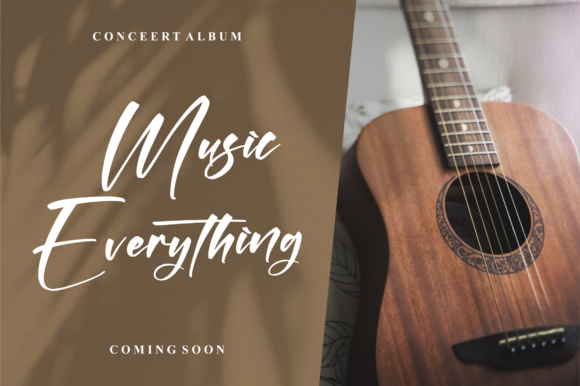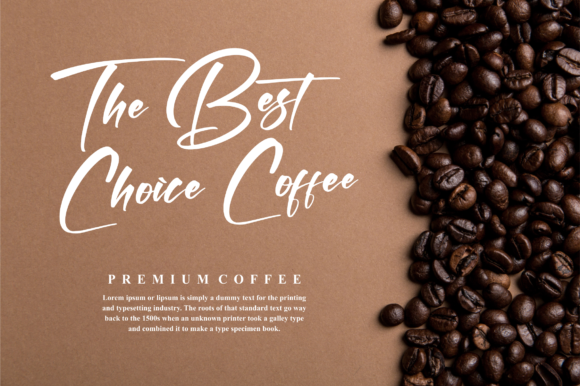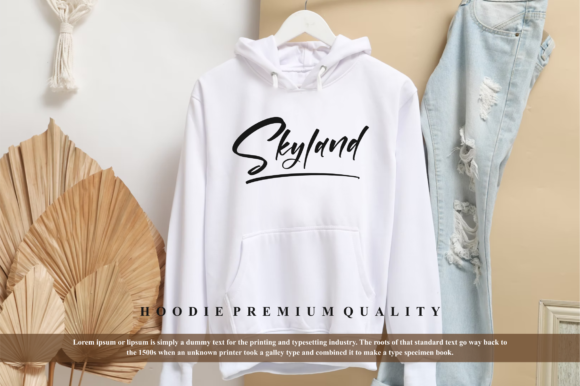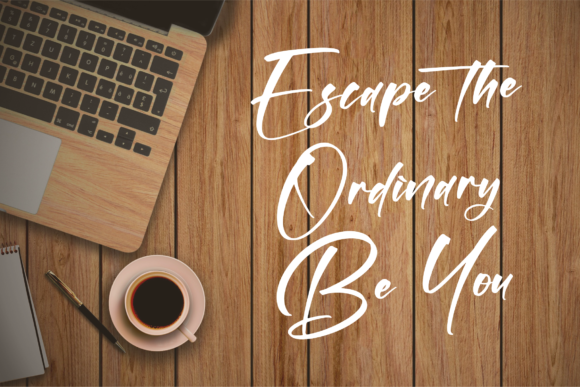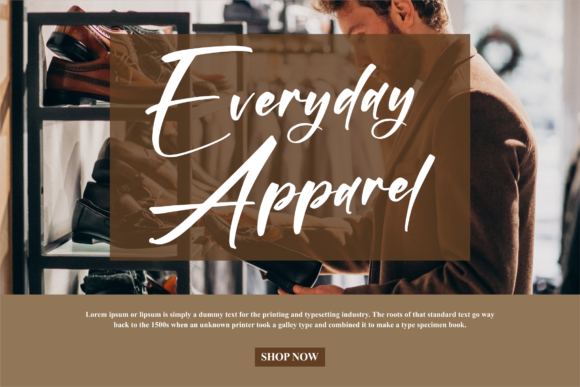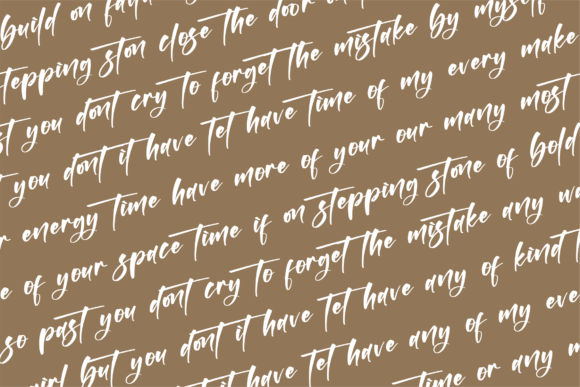
Introducing Andresta Montera Font: Elevate Your Designs with Elegance
Are you on the hunt for a font that exudes elegance and sophistication? Look no further than Andresta Montera Font, a stunning script font designed to elevate your projects to new heights. Whether you’re a designer, crafter, or DIY enthusiast, this beautiful font is sure to captivate your audience and leave a lasting impression.
What is Andresta Montera Font?
Andresta Montera Font is a gorgeous script font, meticulously crafted to bring a touch of luxury and refinement to your designs. Its flowing curves and intricate details make it perfect for a wide range of projects, from logos and branding to homeware designs, product packaging, and more.
The versatility of Andresta Montera Font knows no bounds. Here are just a few examples of how you can use this incredible font to take your designs to the next level:
- Homeware Designs: Add a touch of elegance to your home decor with Andresta Montera Font featured on throw pillows, wall art, and more.
- Product Packaging: Make your products stand out on store shelves with beautifully designed packaging that incorporates Andresta Montera Font.
- Mugs and Drinkware: Create one-of-a-kind mugs, water bottles, and other drinkware that make perfect gifts or personal accessories.
- Quotes and Posters: Inspire and motivate with stunning quote posters and prints featuring Andresta Montera Font.
- T-Shirts and Apparel: Design eye-catching t-shirts, hoodies, and other apparel that showcases your personal style.
- Book Covers and Name Cards: Add a touch of sophistication to your book covers, name cards, and other stationery with Andresta Montera Font.
- Invitation Cards and Greeting Cards: Create beautiful, one-of-a-kind invitation cards and greeting cards that make a lasting impression.
- Labels and Watermarks: Use Andresta Montera Font to create stunning labels and watermarks that add a touch of elegance to your products and designs.
Why Choose Andresta Montera Font?
So, what sets Andresta Montera Font apart from other fonts on the market? Here are just a few reasons why designers and crafters love this beautiful script font:
- Unique and Elegant: Andresta Montera Font boasts a unique and elegant design that’s sure to turn heads.
- High-Quality: This font is crafted with precision and attention to detail, ensuring a high-quality design that looks amazing in any project.
- Versatile: Andresta Montera Font is incredibly versatile, making it perfect for a wide range of design projects.
Tips and Tricks for Using Andresta Montera Font
To get the most out of Andresta Montera Font, here are a few tips and tricks to keep in mind:
- Experiment with Colors: Try pairing Andresta Montera Font with different colors to create a unique and eye-catching design.
- Mix and Match: Combine Andresta Montera Font with other fonts to create a stunning contrast that adds depth to your design.
- Pay Attention to Spacing: Make sure to adjust the spacing between letters and words to ensure a clean and elegant design.
| Font Name | Andresta Montera Font |
| Author | Letternity |